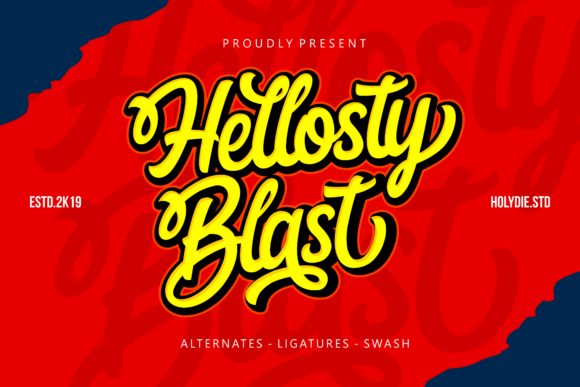
Unleash your creativity with Hellosty Blast, the captivating script font that adds a touch of vintage charm to your designs. Step into a world of endless possibilities as you explore the unique characteristics of this remarkable font, meticulously crafted by Holydie Studio. With Hellosty Blast, transform your Cricut projects into stunning masterpieces that radiate individuality and elegance.
Hellosty Blast is more than just a font; it's an artistic journey that invites you to embrace the beauty of the past while creating designs that resonate with the present. Its charming curves and playful strokes evoke a sense of nostalgia, adding a timeless appeal to your creations. Whether you're designing personalized mugs, eye-catching invitations, or unique cards, Hellosty Blast will elevate your designs to new heights.
Imagine the joy of crafting personalized monograms with Hellosty Blast, adding a touch of exclusivity to your belongings. Create stunning quotes and wall art that speak to your heart, inspiring you and your loved ones every day. The versatility of Hellosty Blast knows no bounds, allowing you to explore a wide range of design styles, from whimsical and playful to elegant and sophisticated.
With Hellosty Blast, you'll discover a font that captures the essence of creativity and self-expression. Its vintage charm will add a touch of warmth and personality to your designs, making them truly memorable. Embrace the power of Hellosty Blast and embark on a creative adventure that will leave you feeling inspired and fulfilled.
Unlock the potential of Hellosty Blast today and witness the transformation of your designs. Let your imagination soar as you create projects that radiate individuality and charm. Experience the joy of crafting with a font that speaks to your soul, leaving an unforgettable impression on all who see it.